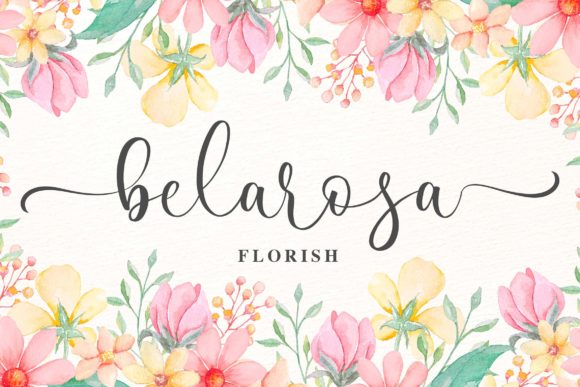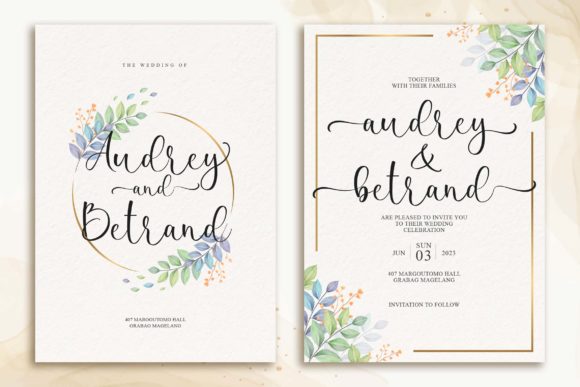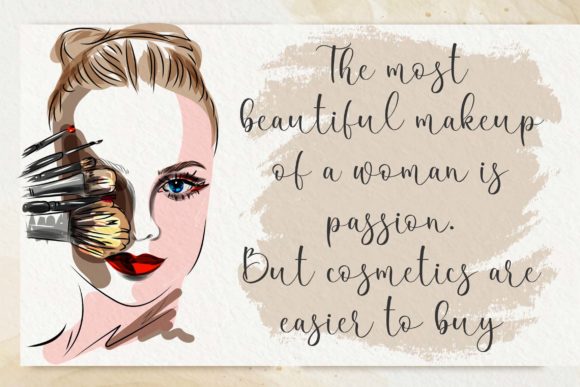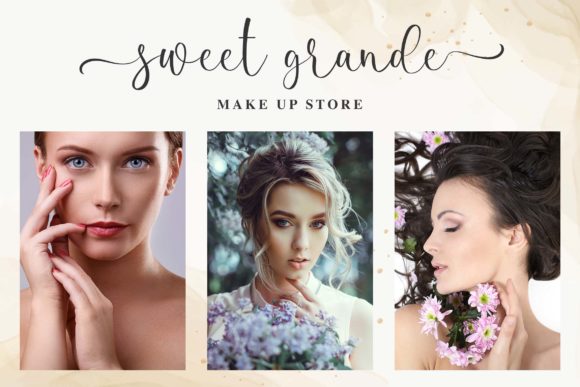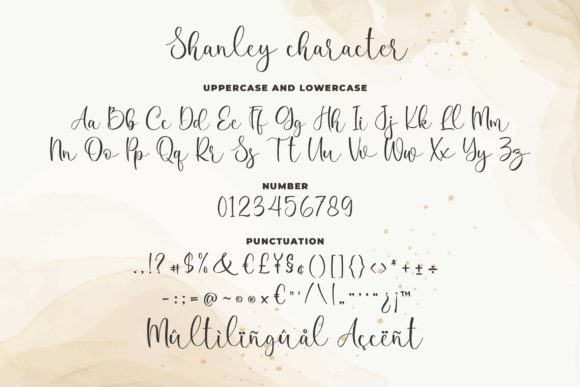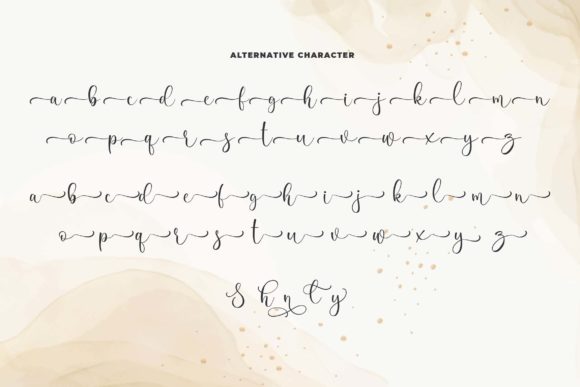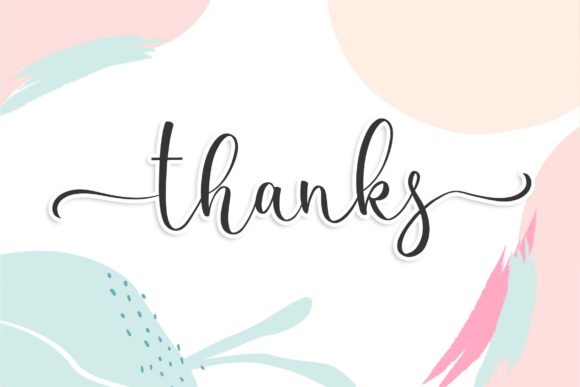
Shanley Font
About Shanley Font
Shanley is inspired by classic typography and brings its own unique style to any design project. This fantastic handwritten font is best suited for headlines of all sizes, as well as for blocks of text that have both maximum and minimum variations. Whether it’s for web, print, moving images or anything else – Shanley will look spectacular.